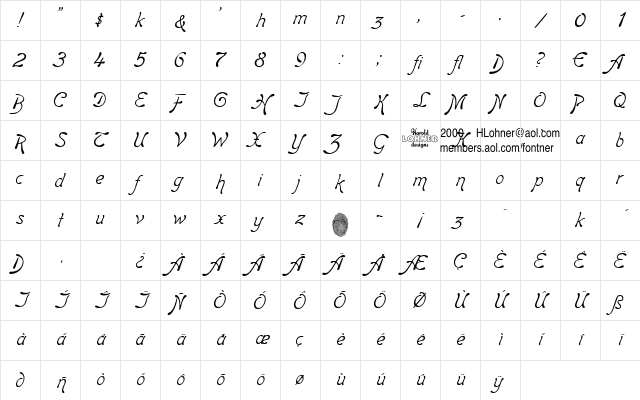
BoomerangItalic Regular
Copyright: Boomerang Italic font v1.5 by Harold Lohner 2000, and placed into the public domain by him. Based on a classic Art Nouveau font.  " http://members.aol.com/fontner
Design Context for BoomerangItalic
BoomerangItalic is a composed and adaptable typeface that performs quietly and consistently across a wide range of design contexts. The slanted form adds forward momentum and visual energy.